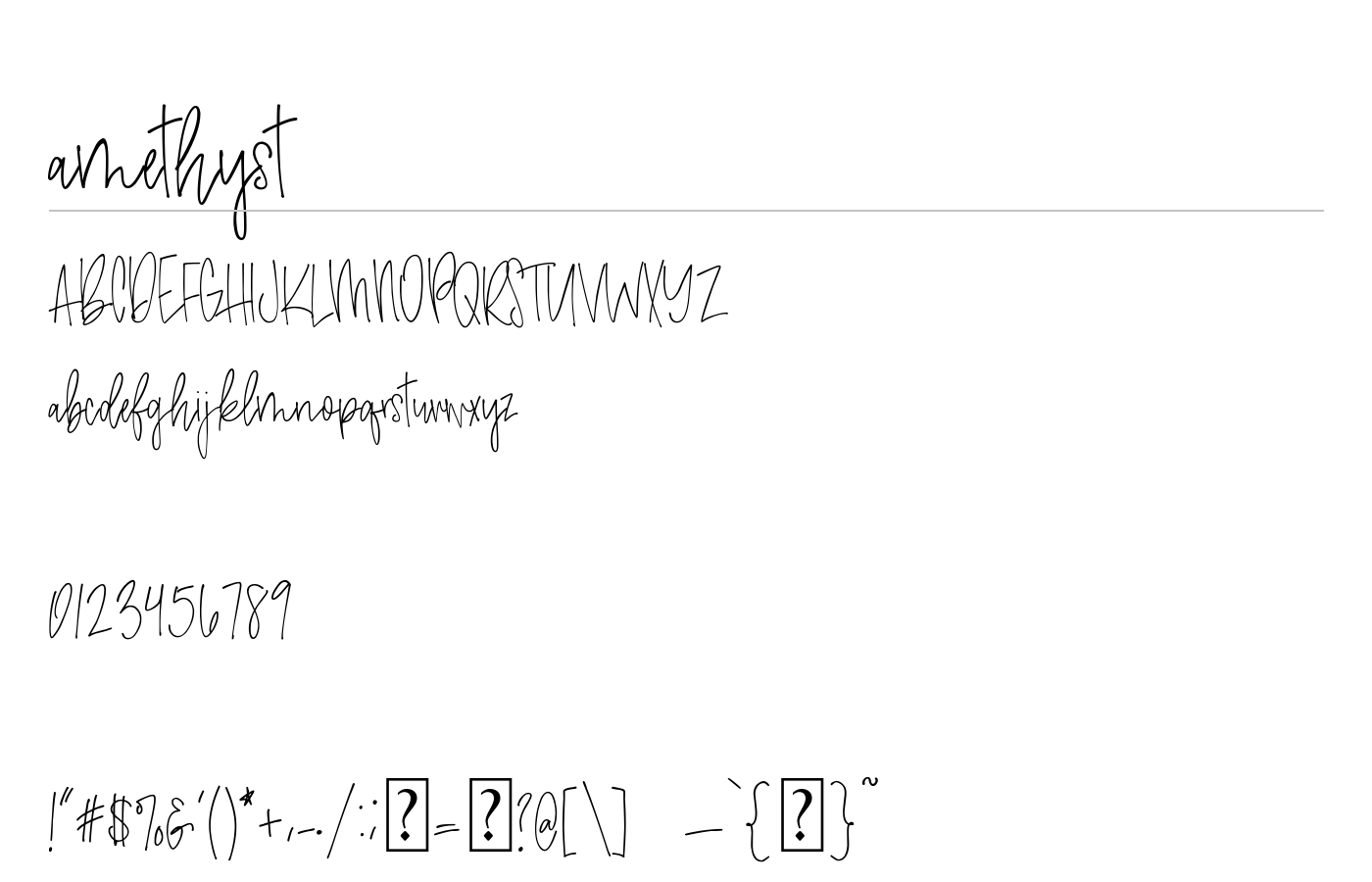
Amethyst is a delicate, handwritten script font characterized by its tall, narrow letterforms and fine, uneven strokes that give it a casual, whimsical feel. Its light weight and airy spacing make it ideal for creative, personal branding or artistic projects where a touch of elegance and individuality is desired. This font works beautifully for invitations, logos, and social media graphics that aim to convey a friendly and charming personality.
amethyst Font